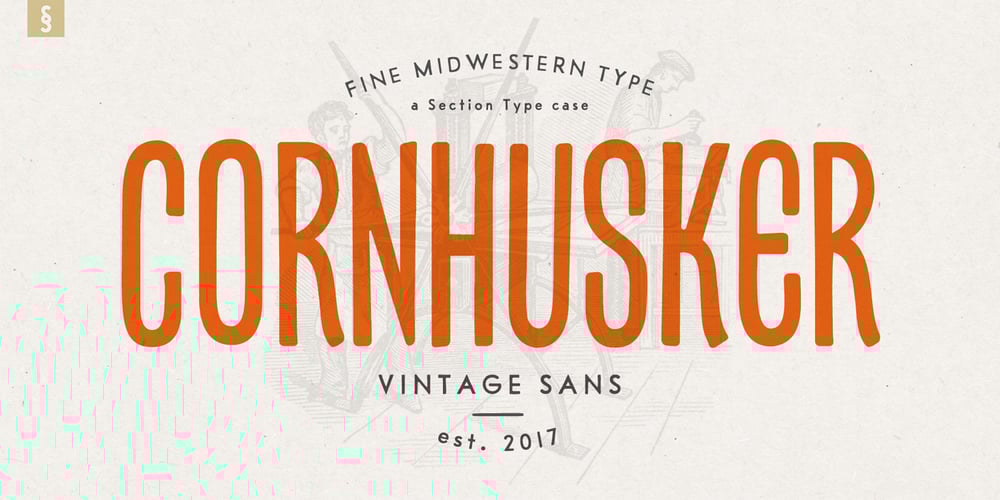
Cornhusker
Cornhusker font
Cornhusker Font Family was designed by published by Section Type. Cornhusker contains 1 styles and family package options. Standing tall as an Illinois cornfield in September, Cornhusker Regular is a strapping condensed sans designed by a champion cornhusker. Inspired by 1940s Midwestern signage, it’s warm & charming characters are perfectly at home in logos, beverage bottles and food packaging, restaurant menus, travel advertisements, websites, stationery, handmade product packaging and so much more. If you’re looking for a hand-crafted typeface with punch (who can fit into tight spaces!) then Cornhusker Regular is the font for you. This inspired revival excels in both retro & modern designs. Cornhusker Regular includes capital letters, small caps, and alternate cuts (with diacritics) of A, E, F, J, X, Y, ᴀ, ᴇ, ғ, ᴊ, x, ʏ, 0, 1, 2, 3, 4, 5, 7 and a sharp German double s in both cap and smallcap. This font is not affiliated with or endorsed by the University of Nebraska. WHAT’S INCLUDED Cornhusker Regular includes an installable digital Opentype Font file in a single weight. This file contains a basic Latin character set with a full set of uppercase and small caps, multilingual diacritics, numbers, international currency figures, punctuation and pagination symbols. The font also includes alternate cuts for select uppercase and smallcap letters (located in stylistic sets). It is compatible with Adobe CS and CC, Microsoft Word and other type editing apps. SUPPORTED LANGUAGES Afrikaans, Alsatian, Basque, Bislama, Breton, Catalan, Chamorro, Danish, Dutch, English, Faroese, Finnish, Flemish, Franco-Provencal, French, Frisian, Friulian, Galician, German, Greenlandic, Icelandic, Indonesian, Irish, Italian, Ladin, Latin, Luxembourgish, Malay, Manx Gaelic, Northern Sotho, Norwegian (Bokmål), Norwegian (Nynorsk), Occitan, Portuguese, Rhaeto-Romance, Romansh, Sami (Inari), Sami (Lule), Sami (Northern), Sami (Skolt), Sami (Southern), Scottish Gaelic, Spanish, Swahili, Swedish, Tagalog, Walloon and Welsh.